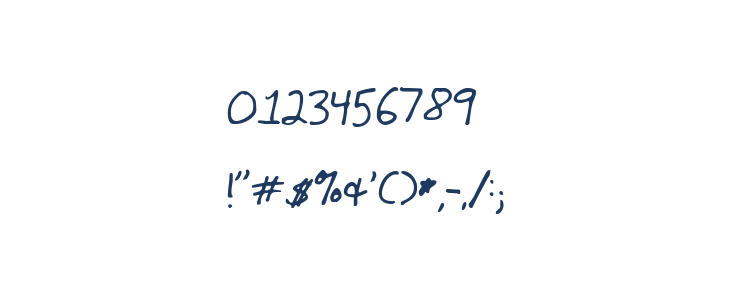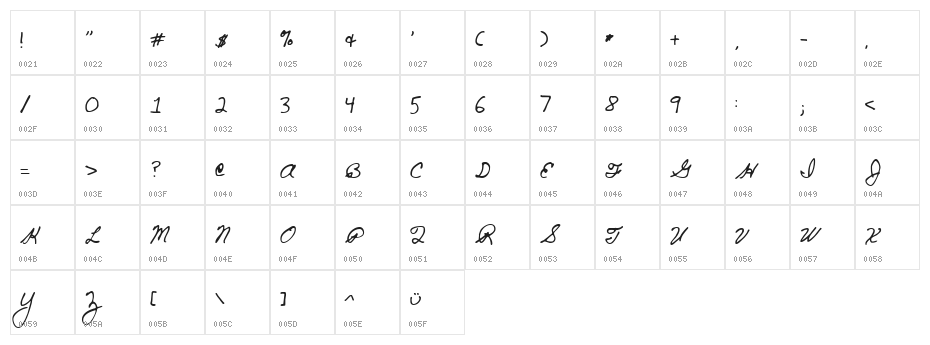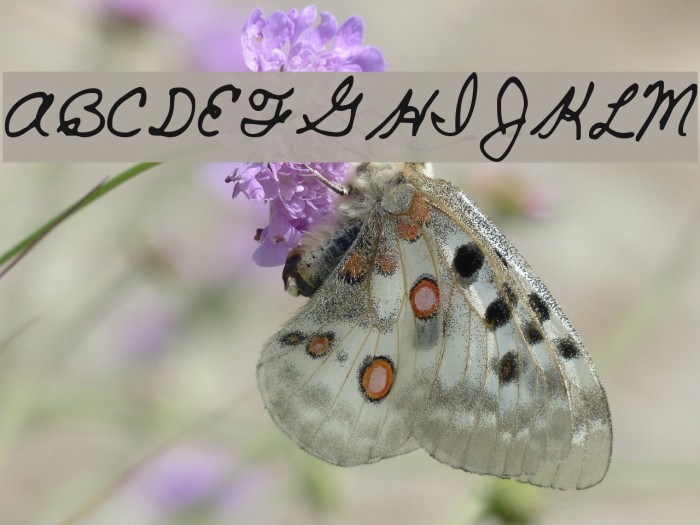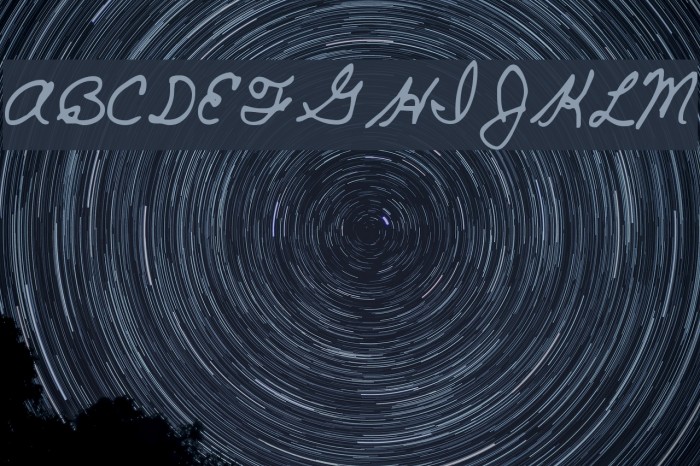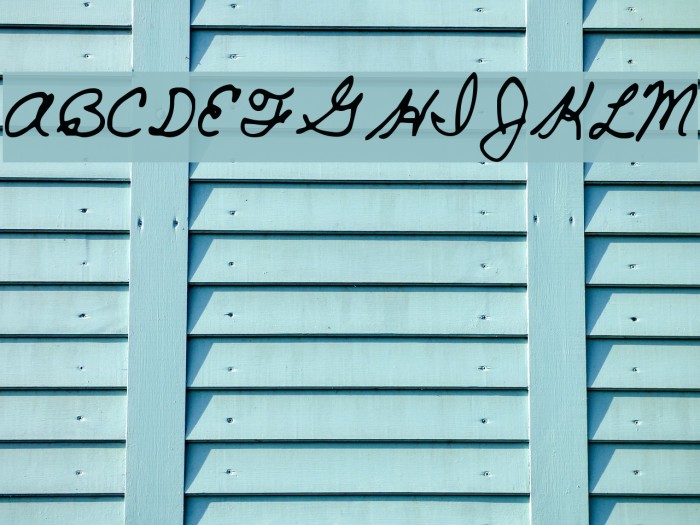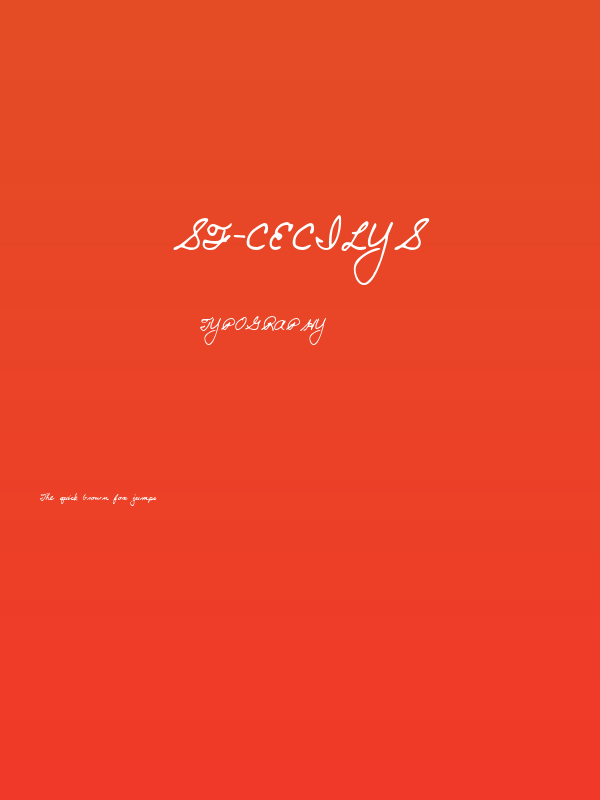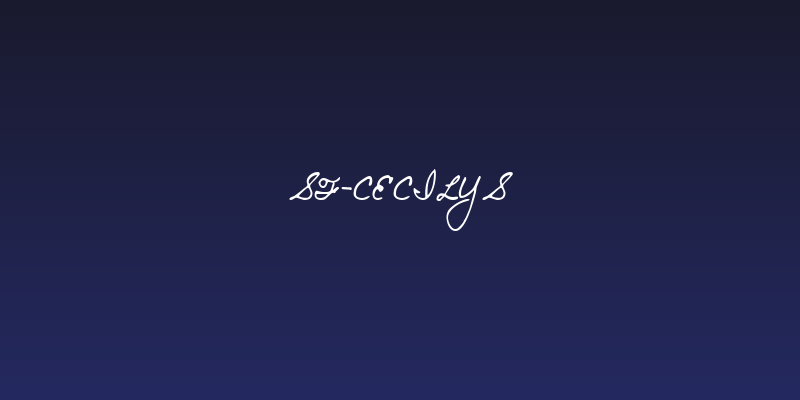
SF-Cecilys Font
SF-Cecilys Description
This font exhibits a flowing, cursive style that mimics natural handwriting. The uppercase letters are elegantly looped and connected, giving a sense of fluidity and motion. The lowercase letters maintain a consistent style, with smooth curves and a slight slant, enhancing the handwritten appearance. The numerals are distinct yet harmonize well with the alphabetic characters, maintaining the same cursive flair. Special characters are crafted with the same attention to detail, ensuring they blend seamlessly with the rest of the font. Overall, this font exudes a personal and artistic touch, making it ideal for projects that require a human element.